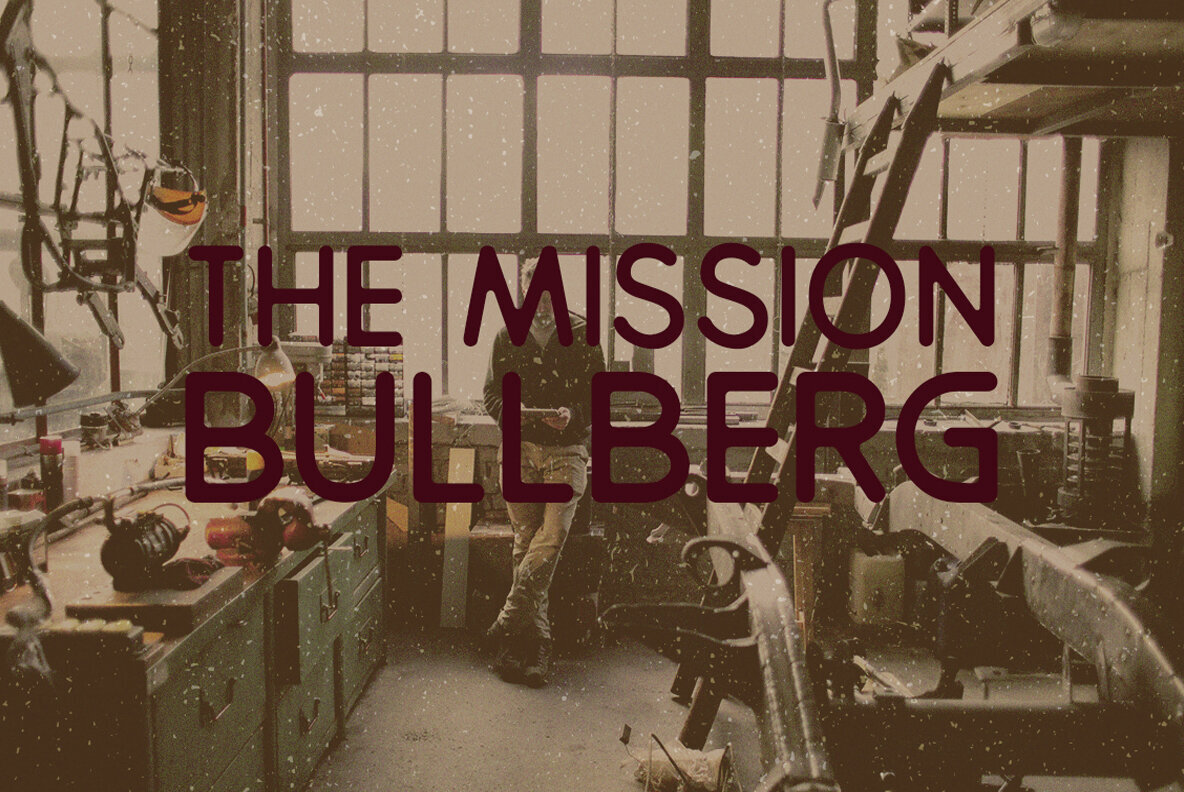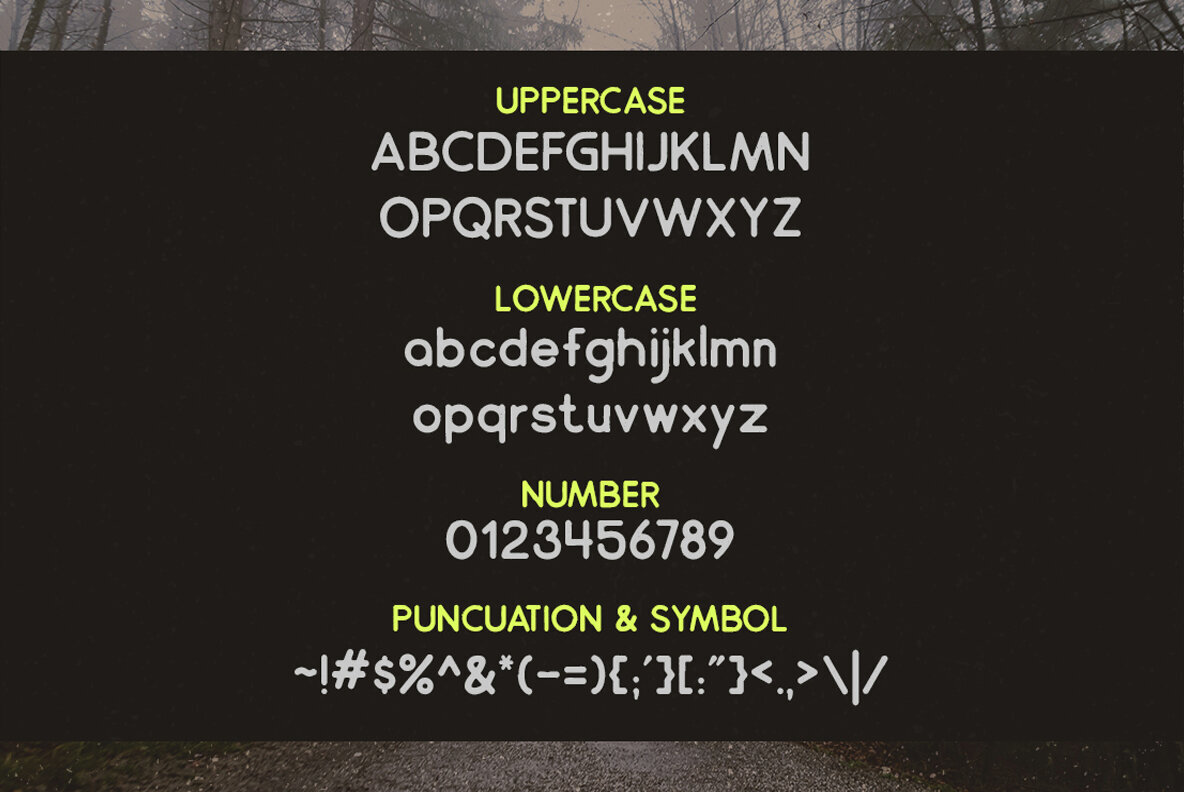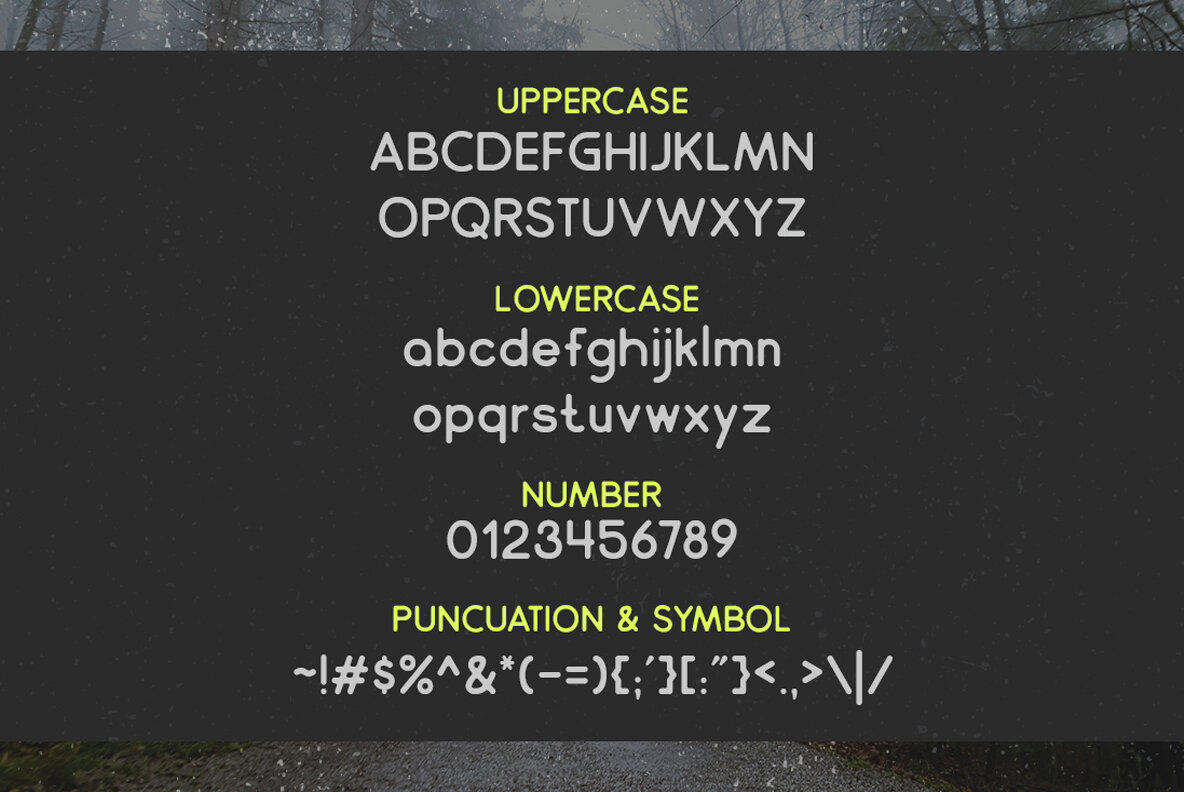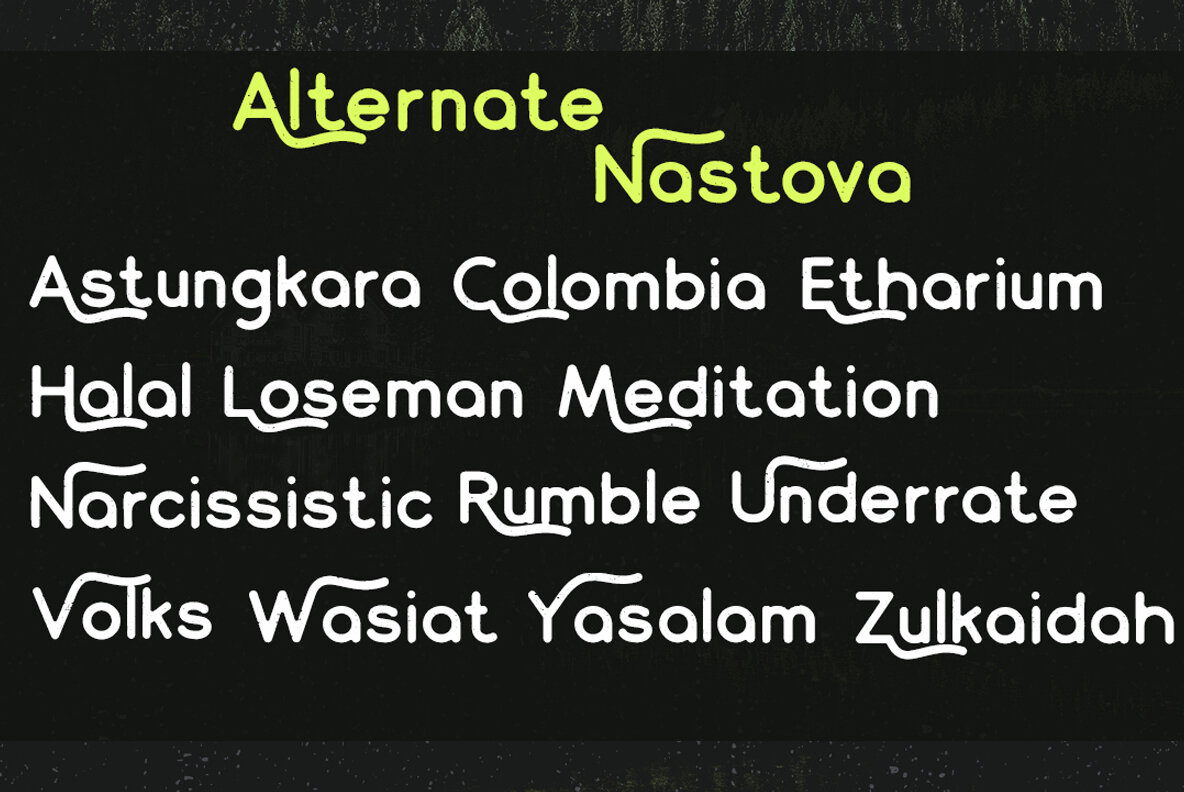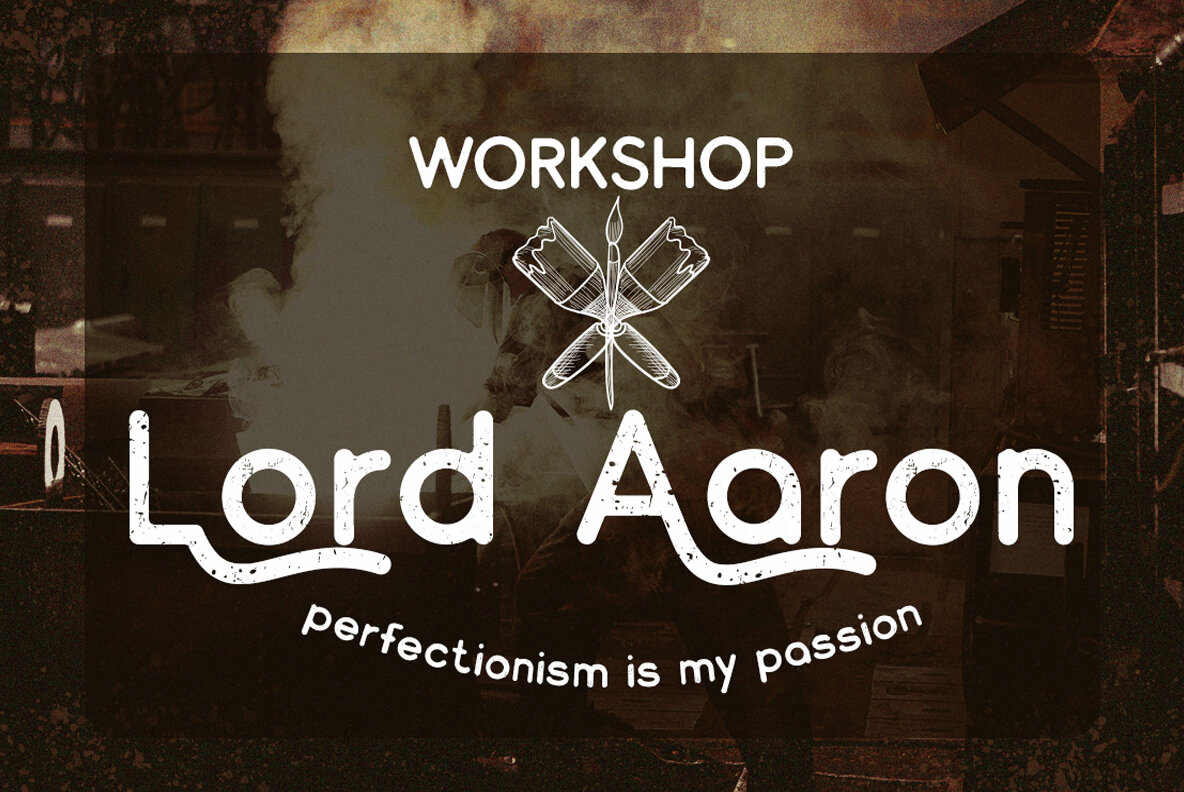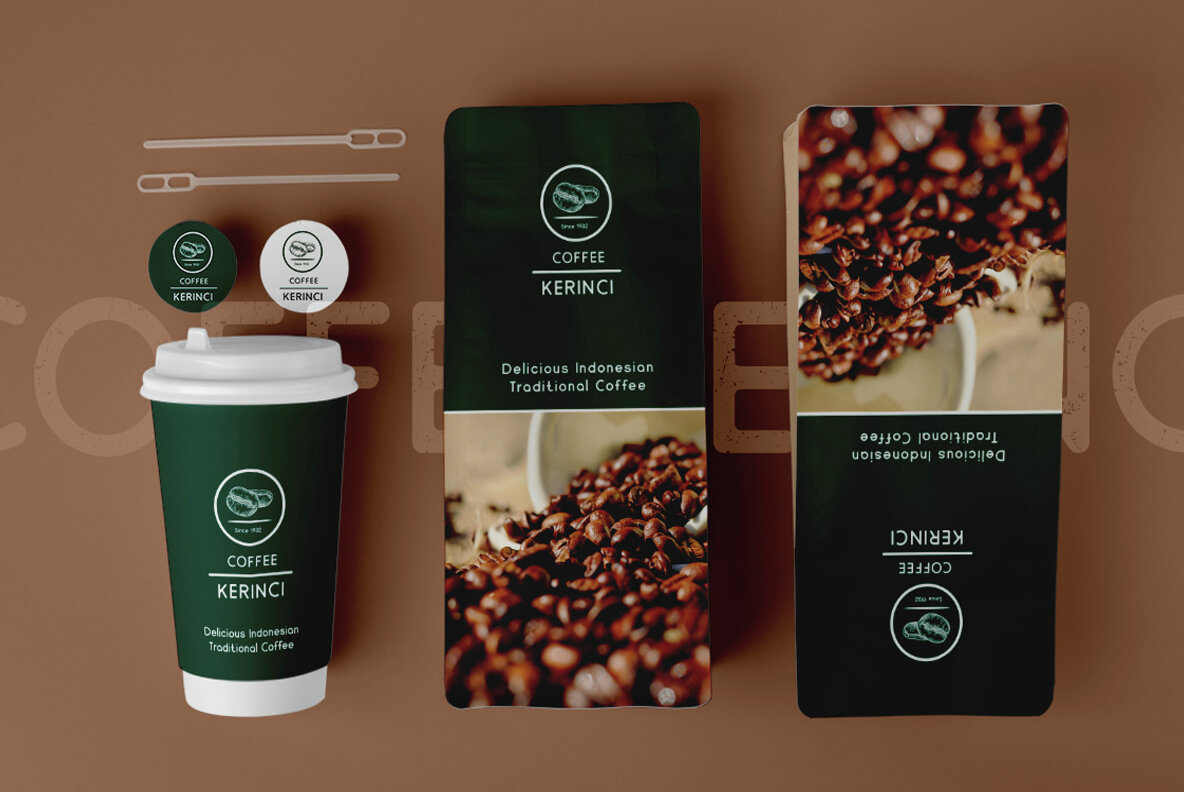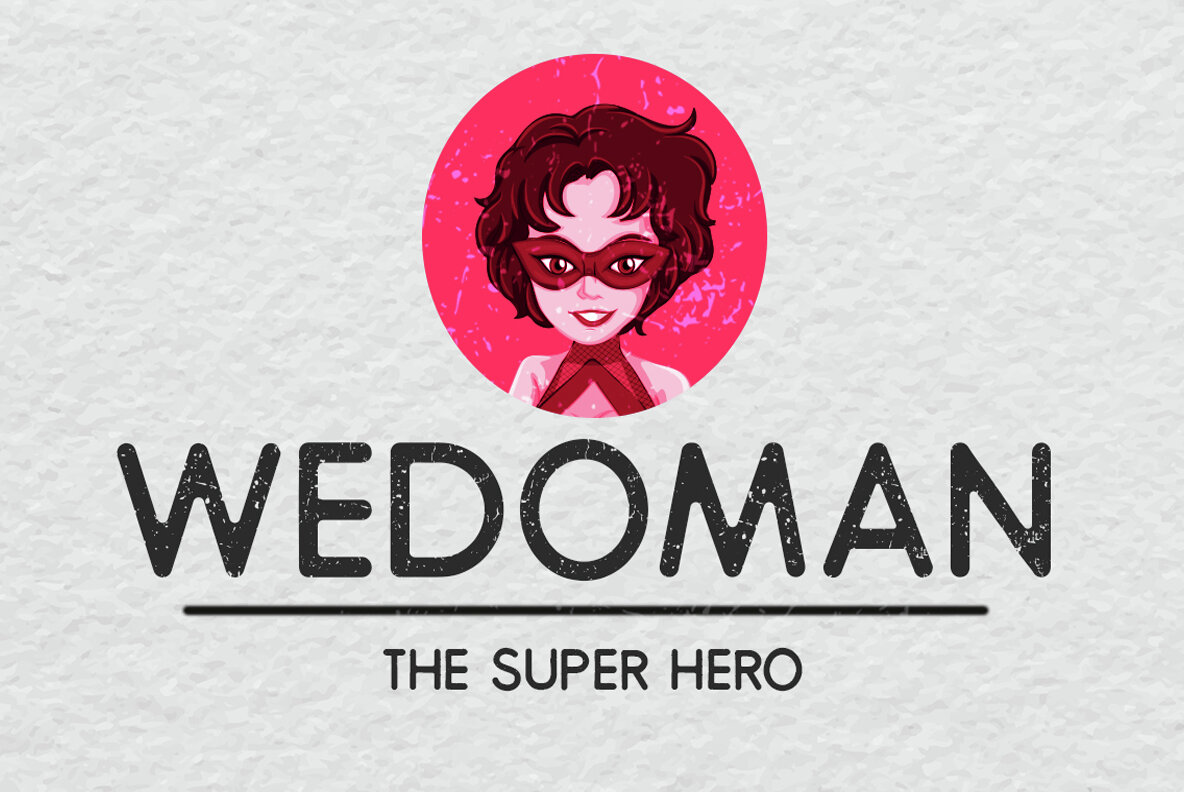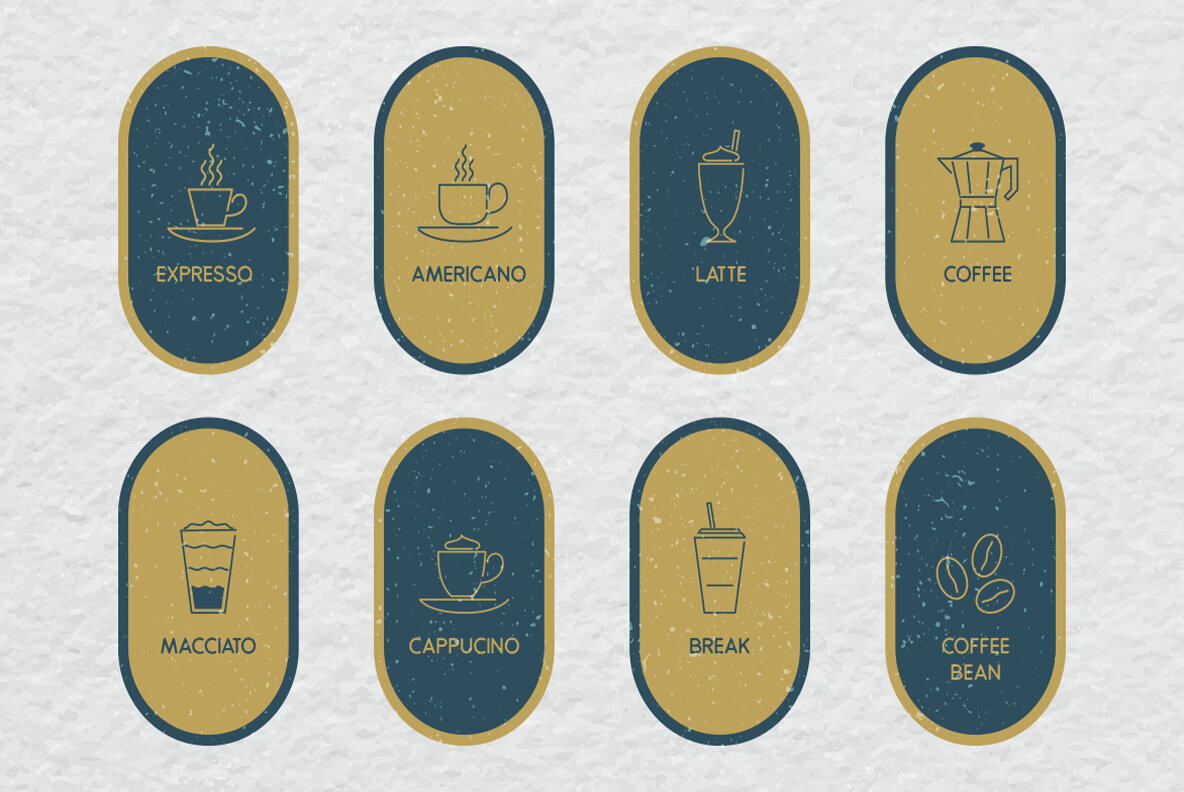
Nastova Font
The Nastova font combines modern aesthetics with a vintage touch, perfect for those who appreciate simplicity. This font includes special alternatives within some characters to enhance its visual appeal. Ideal for various applications, Nastova is suitable for use in logos, banners, graphic designs, advertising, product packaging, and films.Nastova: A Blend of Modern and Vintage Style
Usage Versatility